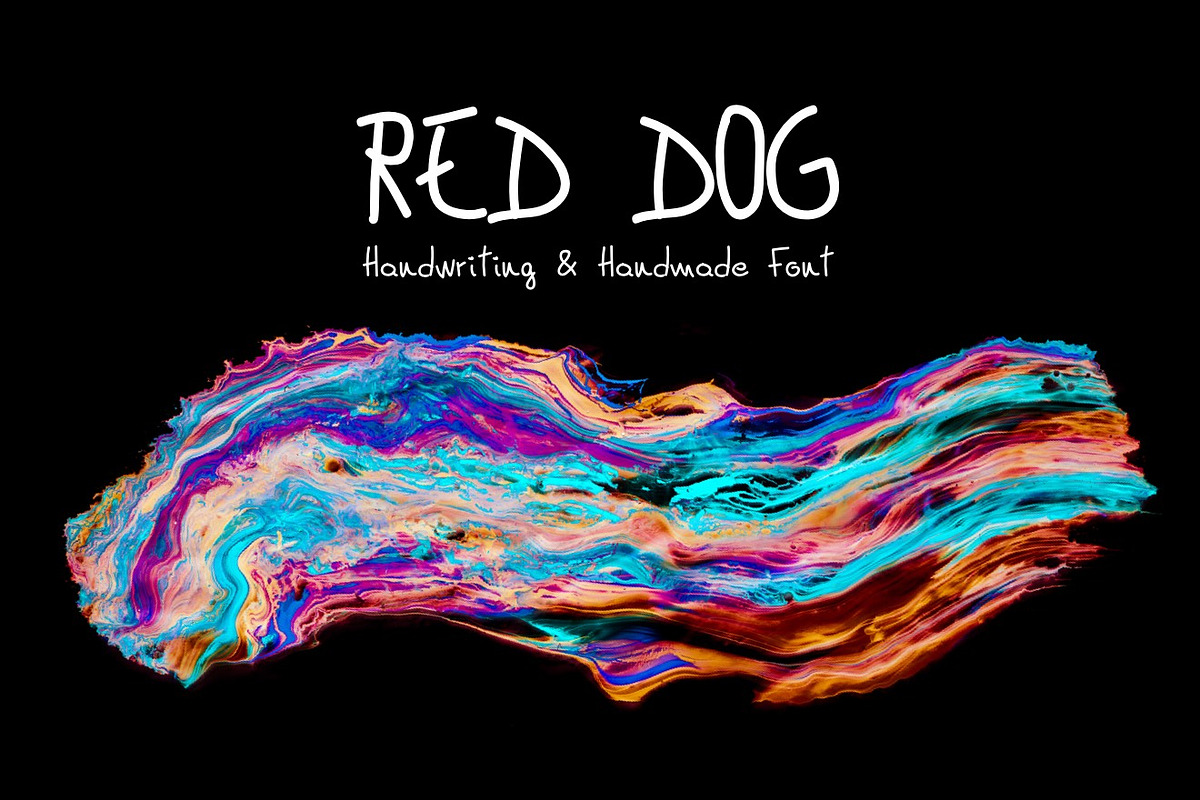
Red Dog Handwriting Font
Red Dog Handwriting Font by Designerbundle is a font selected for branding, posters, packaging, typography.
- A beautiful hand made font containing upper & lowercase characters, numerals and a large range of punctuation to help you design cards, shir
Why Red Dog Handwriting Font is worth a look
Red Dog Handwriting Font by Designerbundle fits naturally into Branding, posters, packaging, typography.